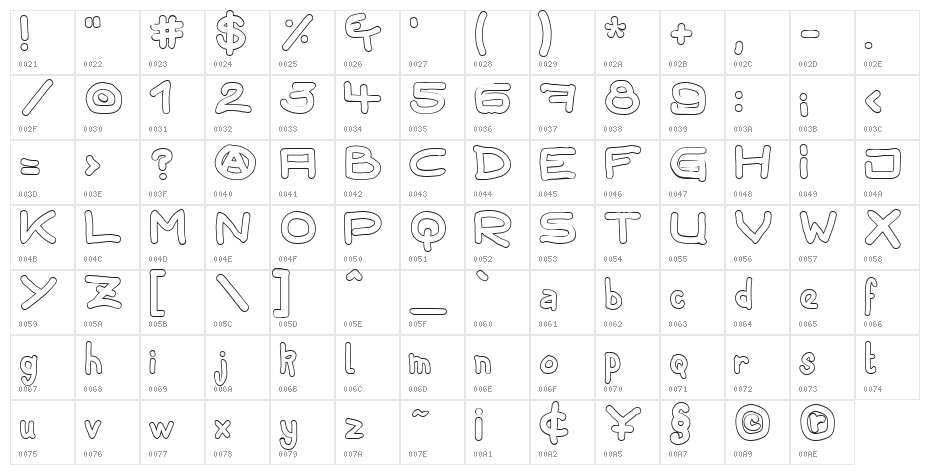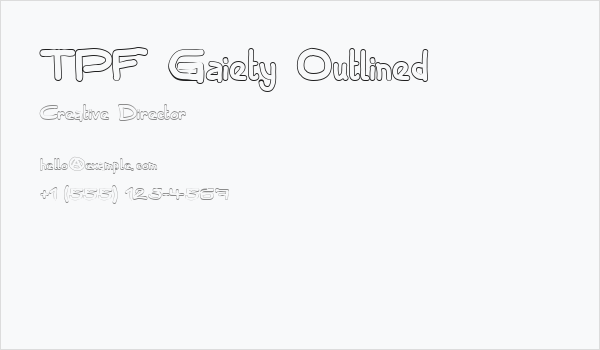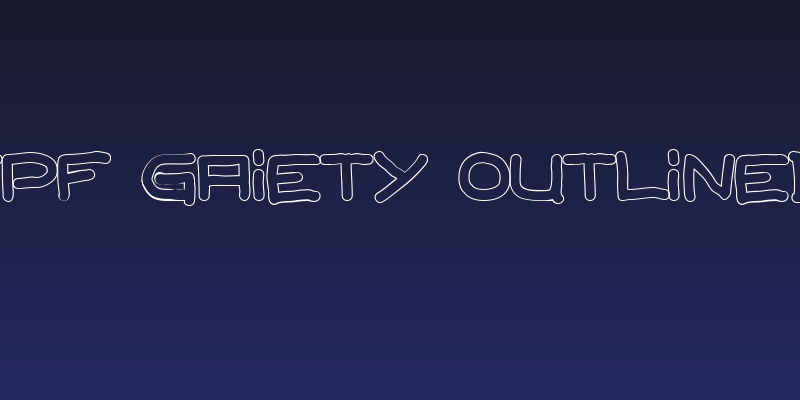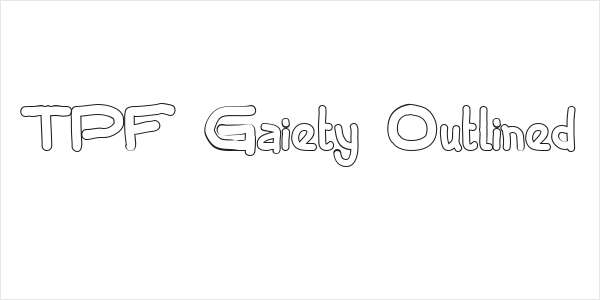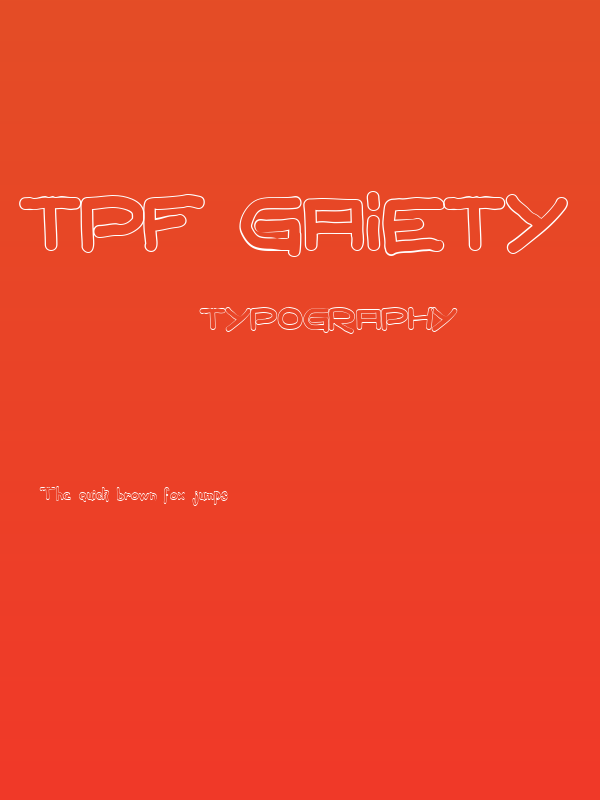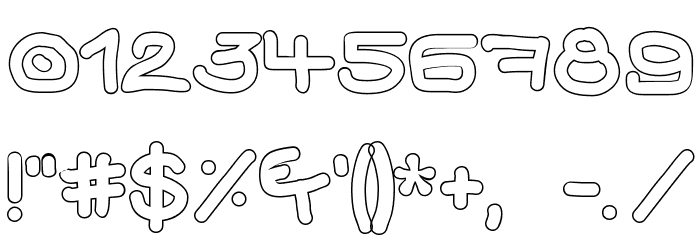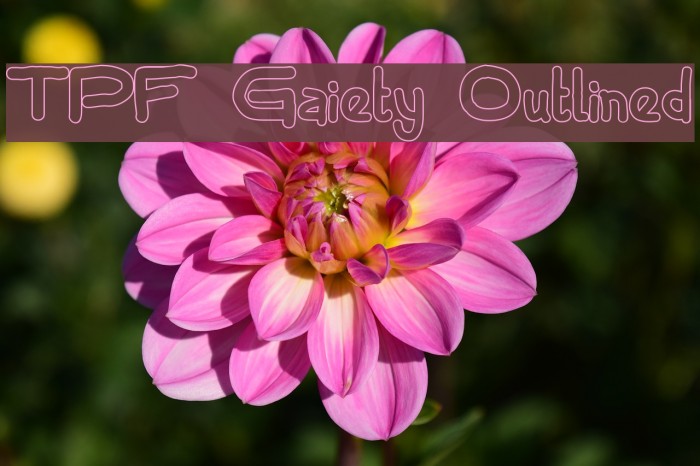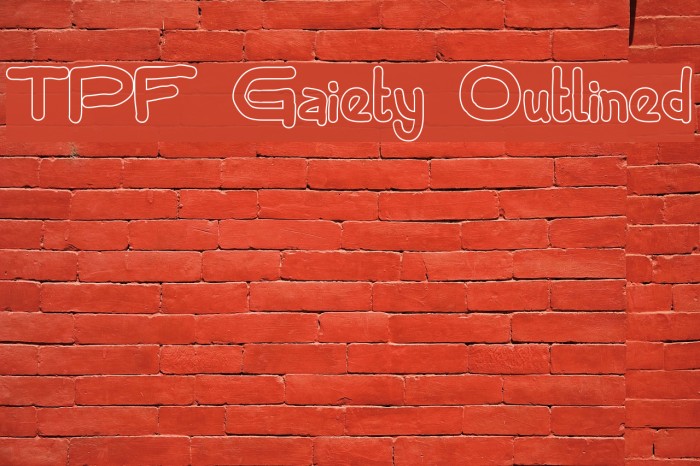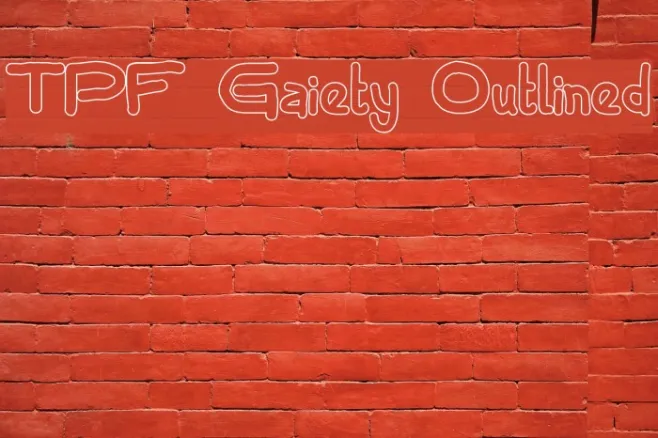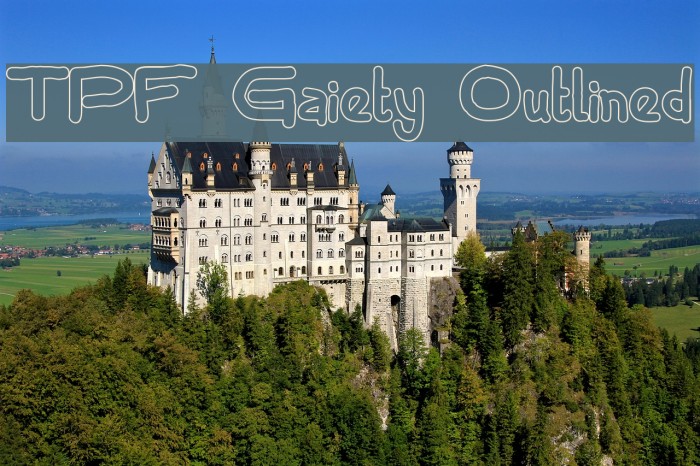
TPF Gaiety Outlined Font
TPF Gaiety Outlined Description
This font features a playful and whimsical outline style, characterized by its bold and rounded letterforms. The uppercase and lowercase letters maintain a consistent thickness, creating a cohesive look across the alphabet. The numbers and special characters follow the same outlined design, adding to the font's unique charm. The overall appearance is both fun and approachable, making it suitable for creative and informal projects. The spacing between characters is relatively normal, ensuring readability while maintaining its decorative appeal.
| Proposed Projects | Ideal for children's books, playful branding, posters, and party invitations. |